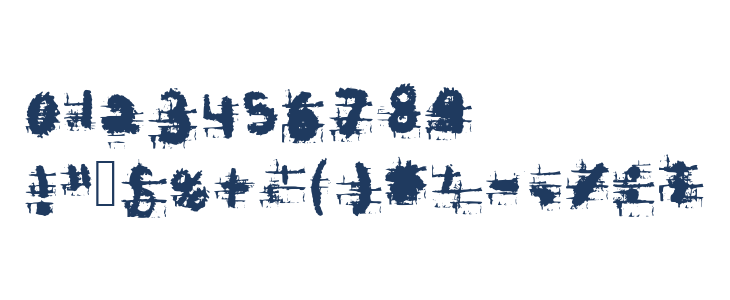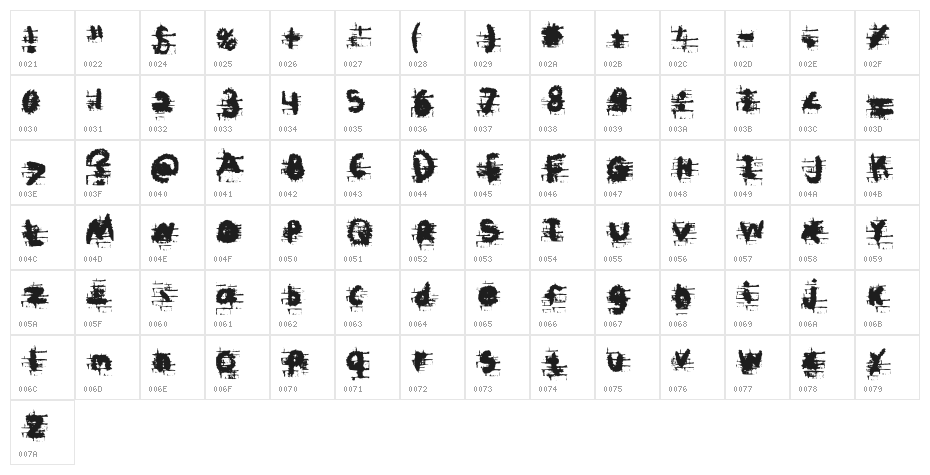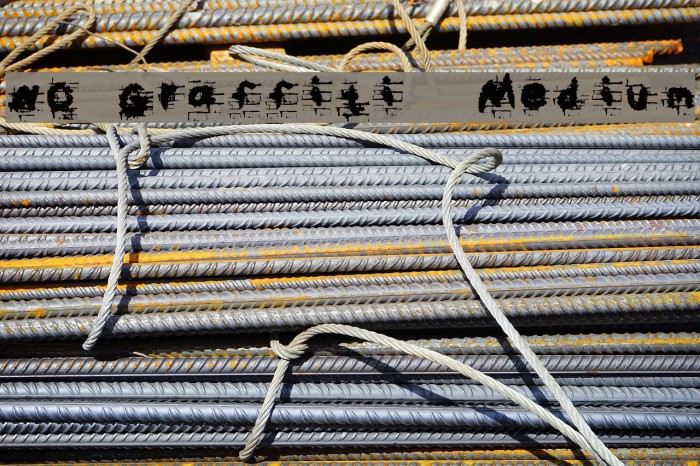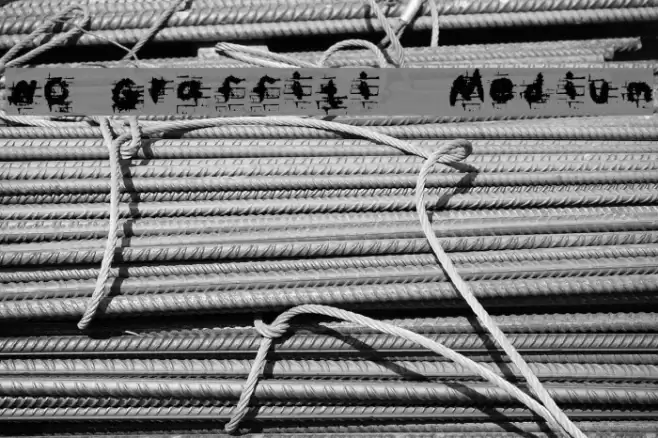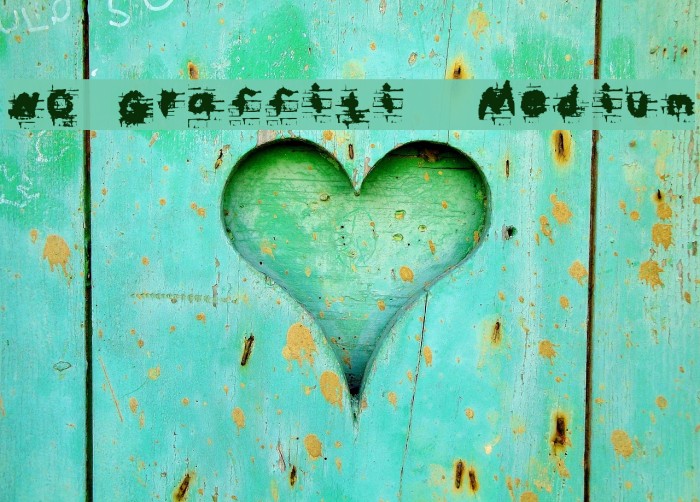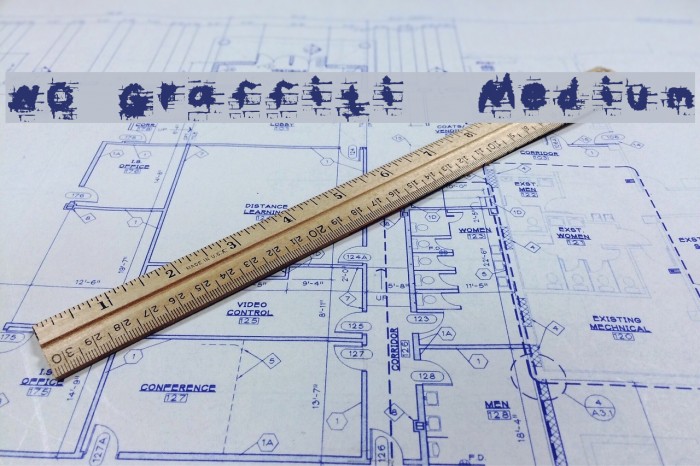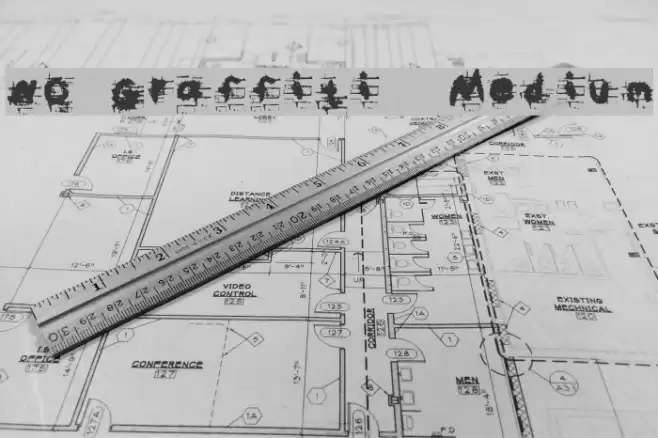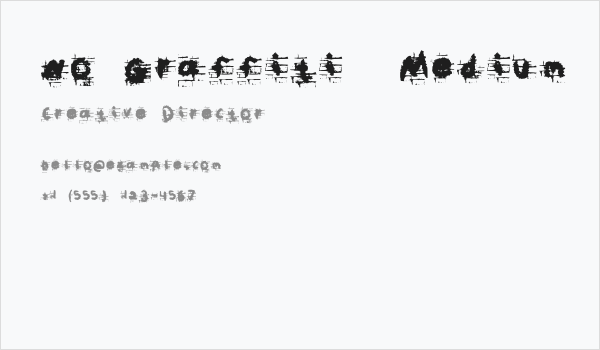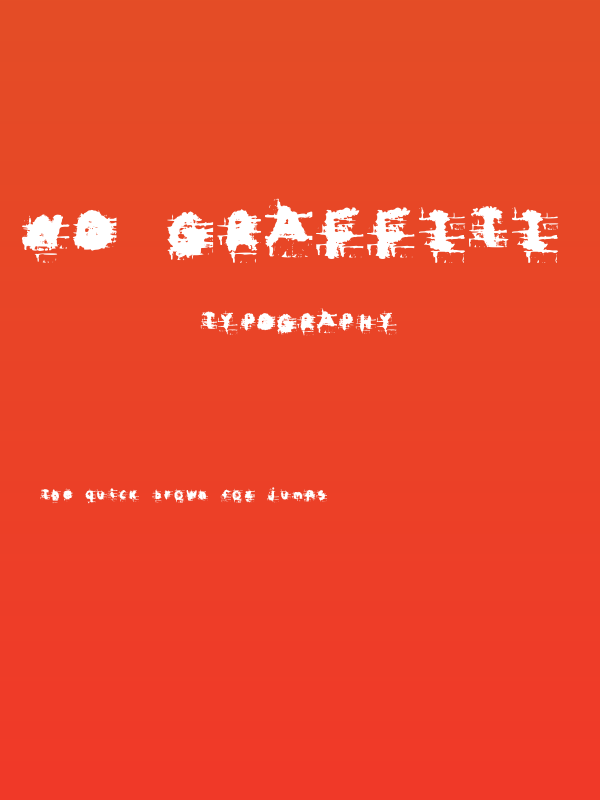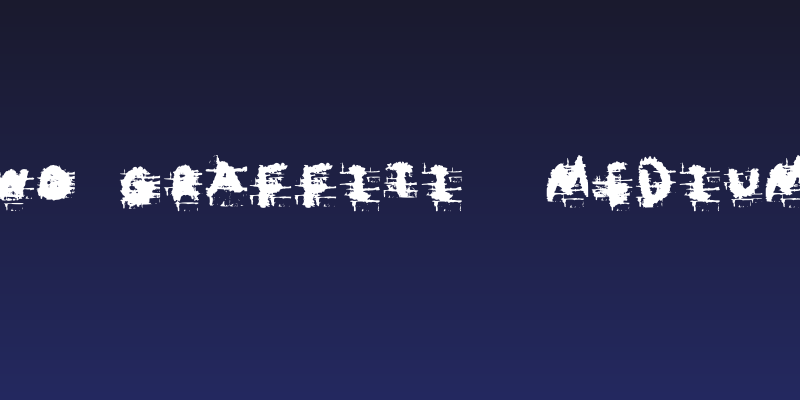
No Graffiti Medium Font
No Graffiti Medium Description
This font exhibits a bold, distressed style reminiscent of graffiti art. Each character is heavily textured, giving the appearance of being spray-painted with uneven edges and splatters. The uppercase and lowercase letters maintain a consistent chaotic aesthetic, while the numbers and special characters follow suit with the same rugged, urban feel. The font's unique design makes it stand out, capturing the essence of street art with its raw and edgy look.
| Overall Style | Urban, Edgy, Graffiti |
| Use Case | Logos, Posters, Album Covers |
| Proposed Projects | Ideal for street art-themed designs, urban branding, music album covers, and edgy poster designs. |